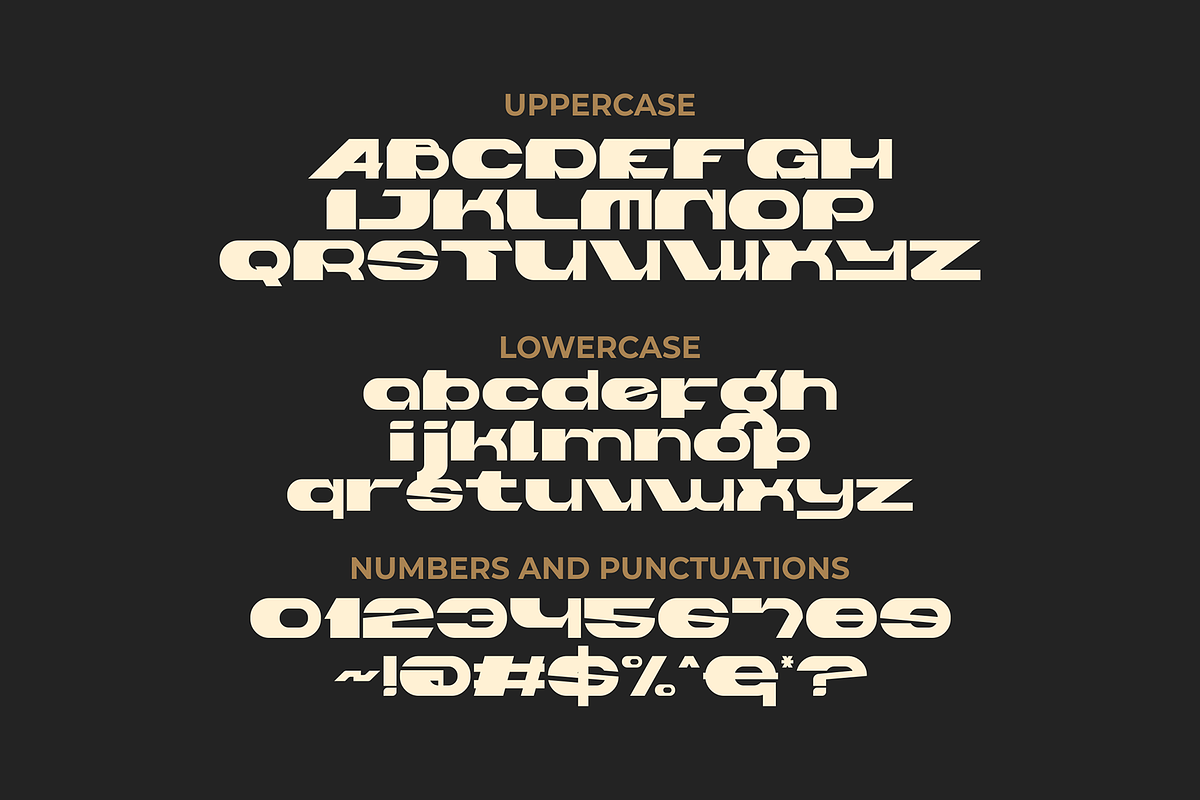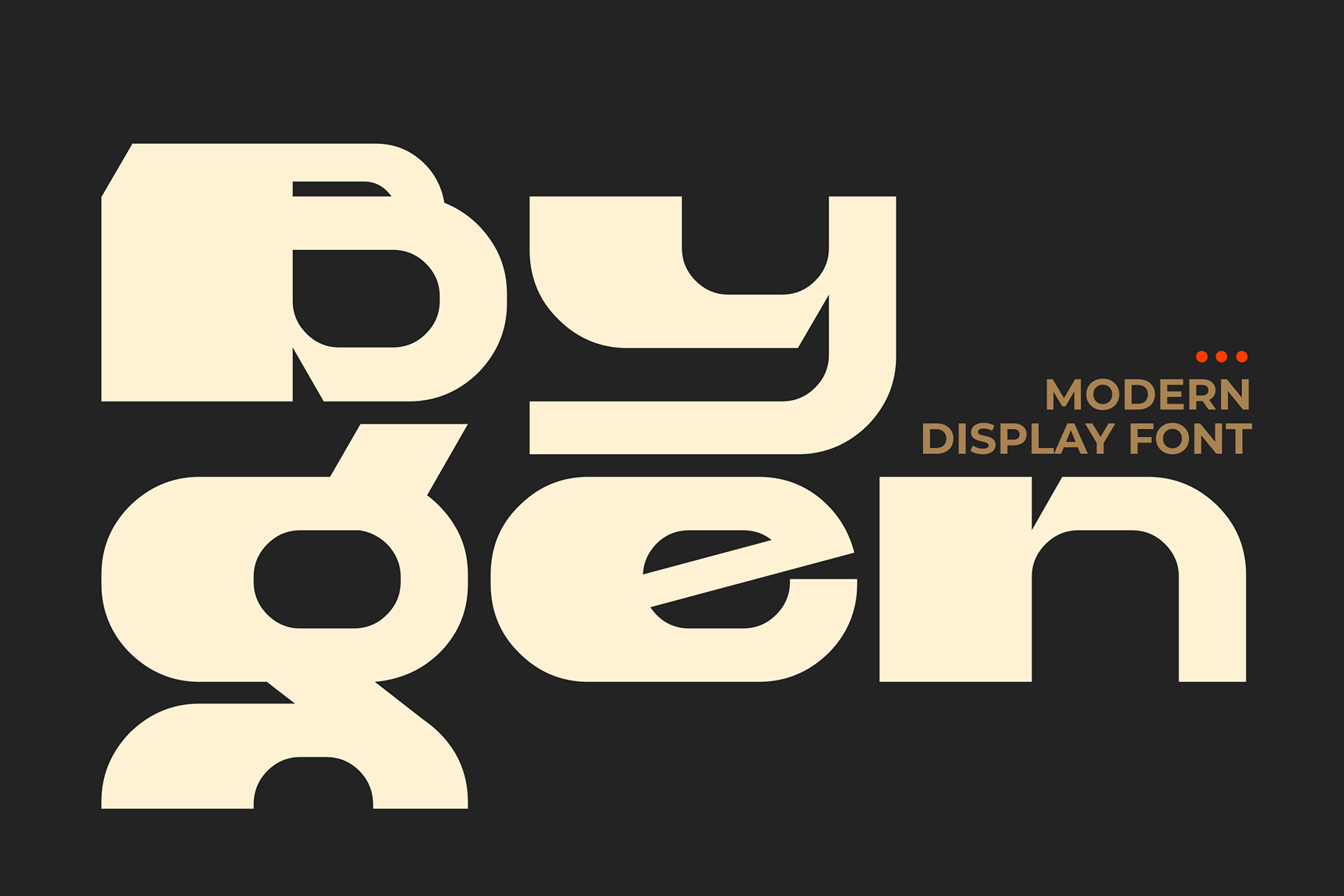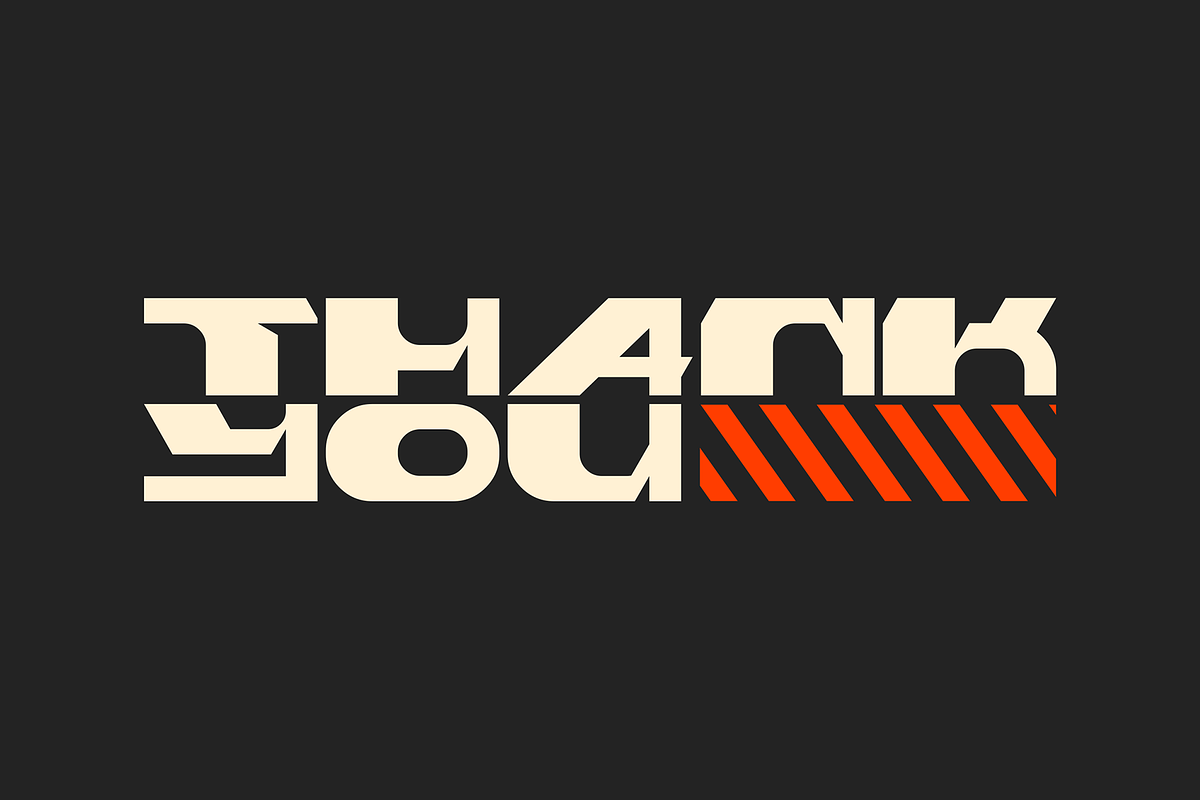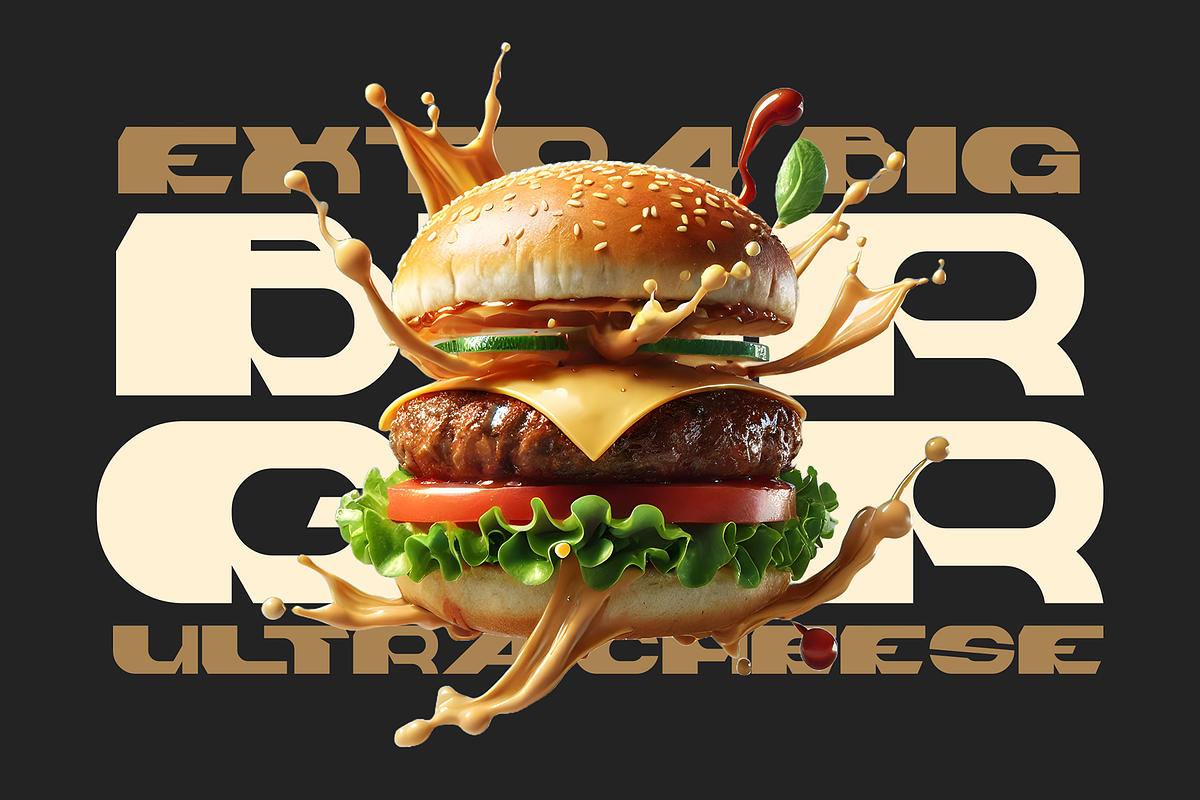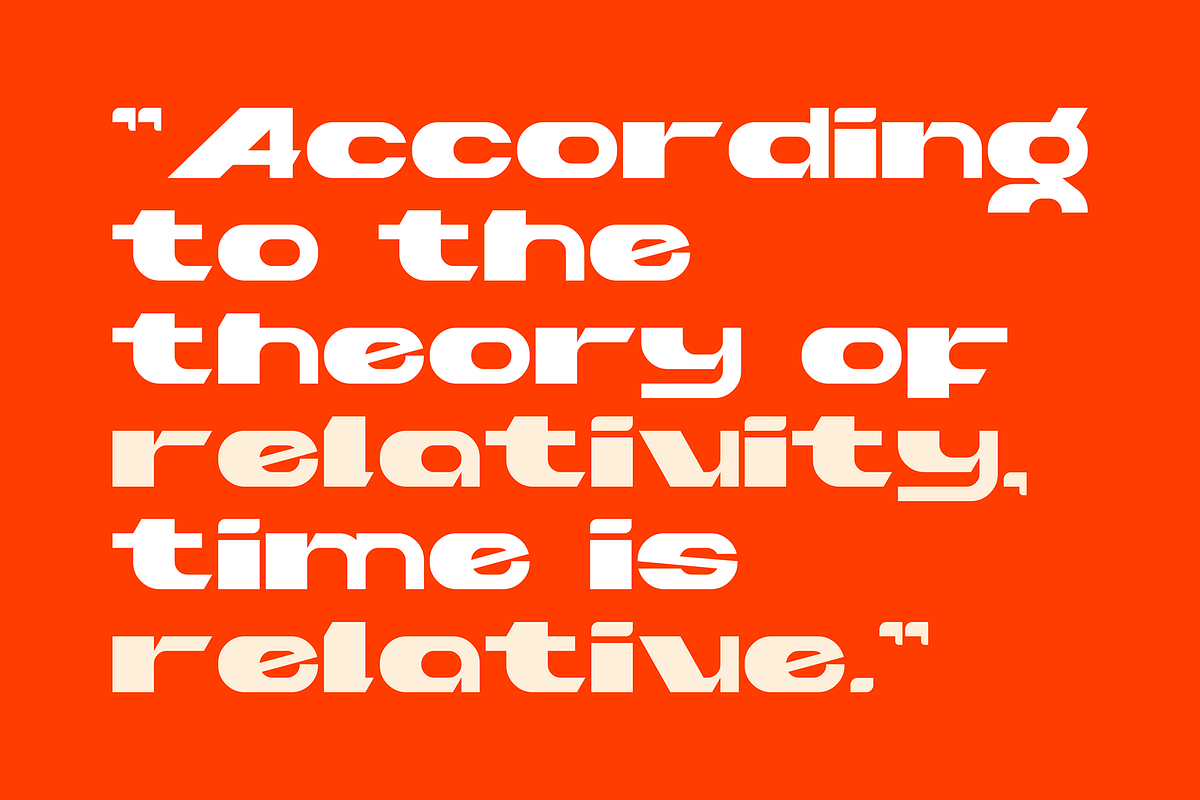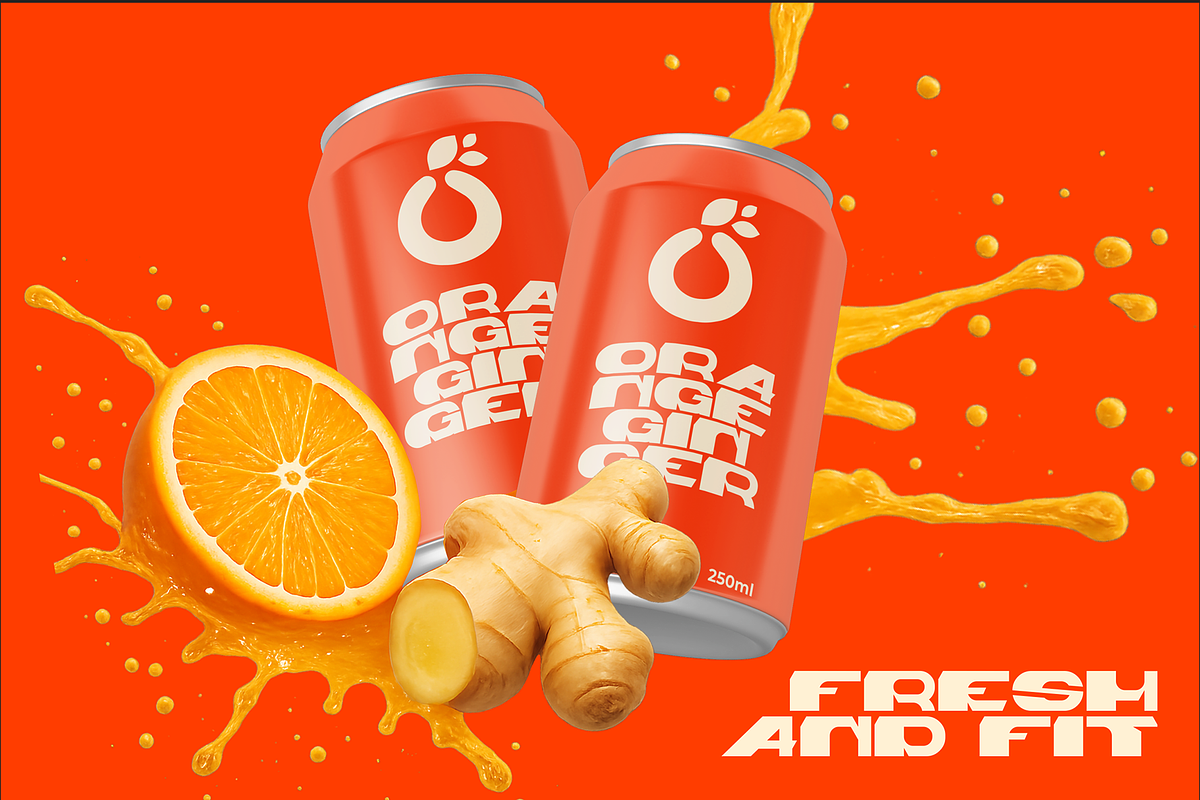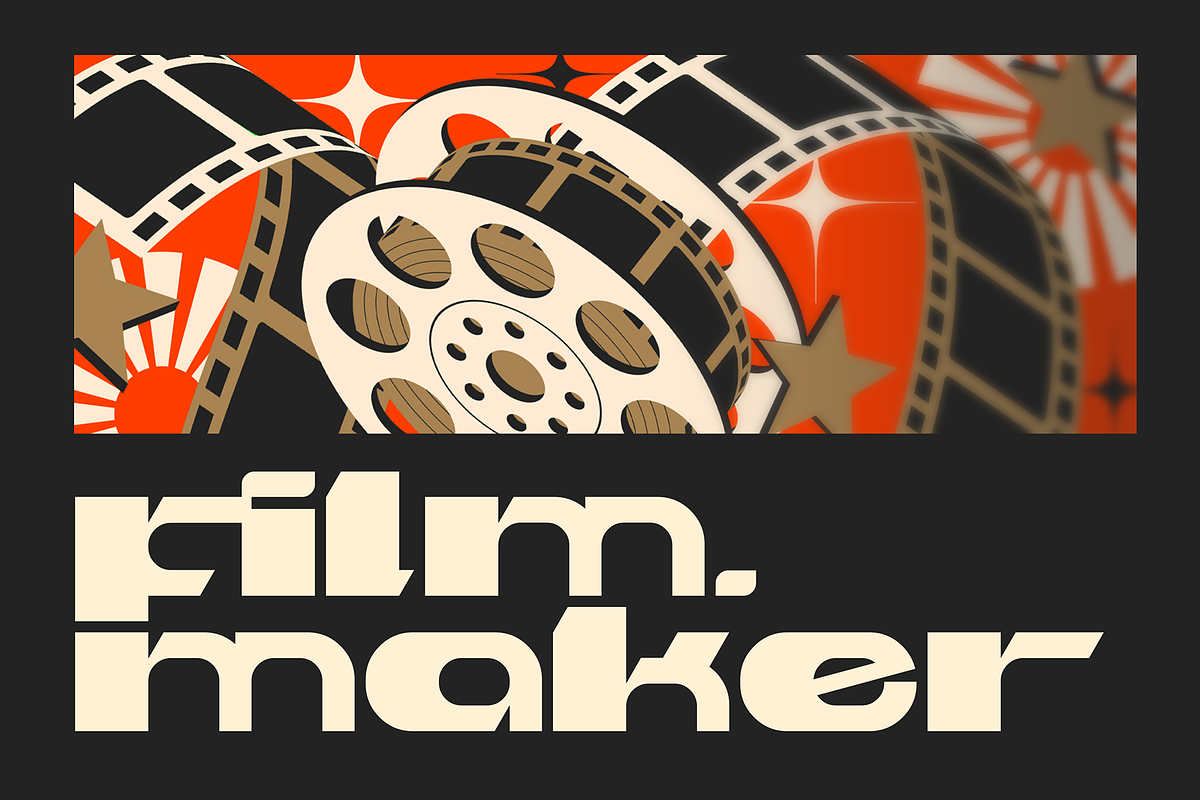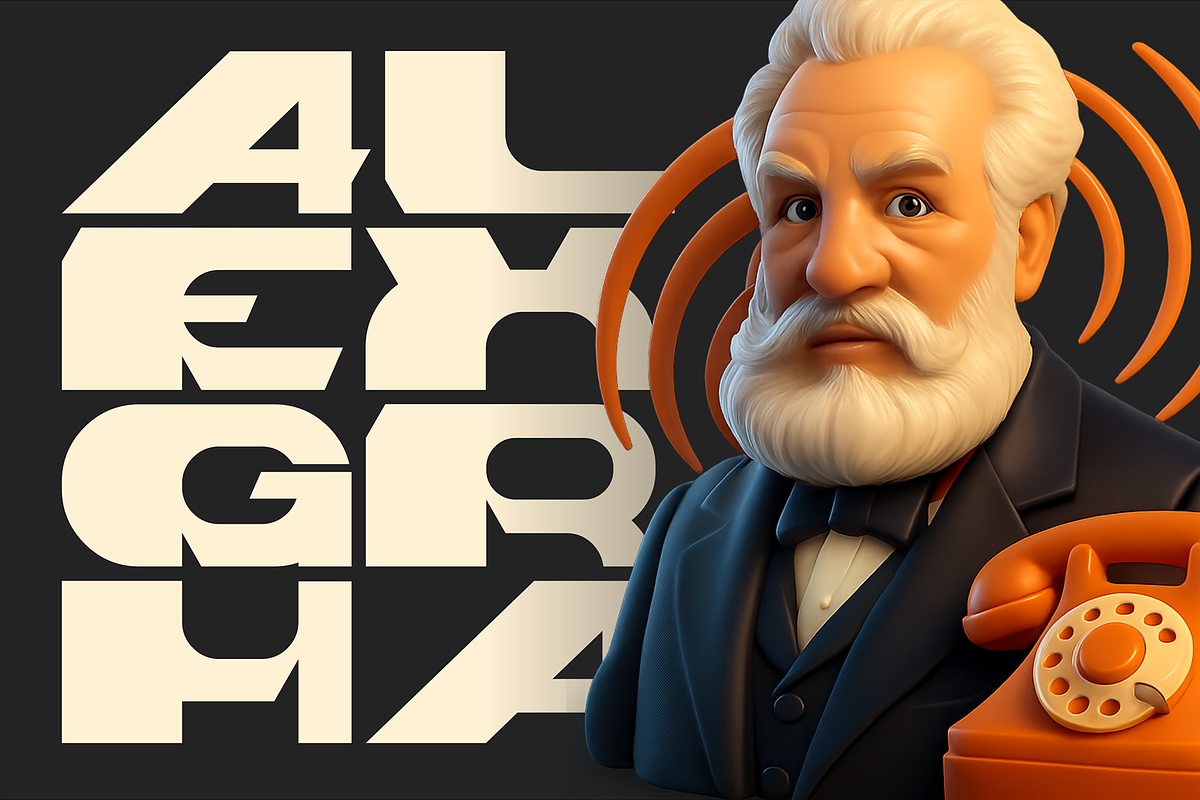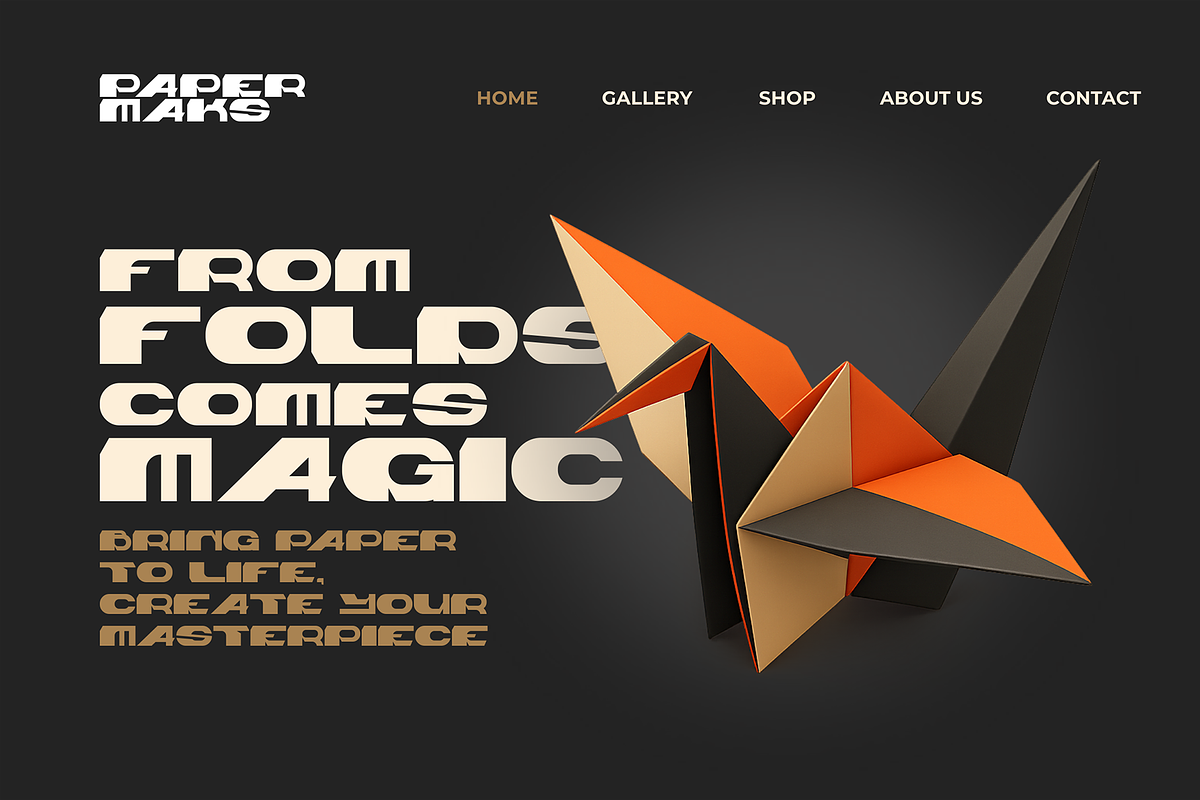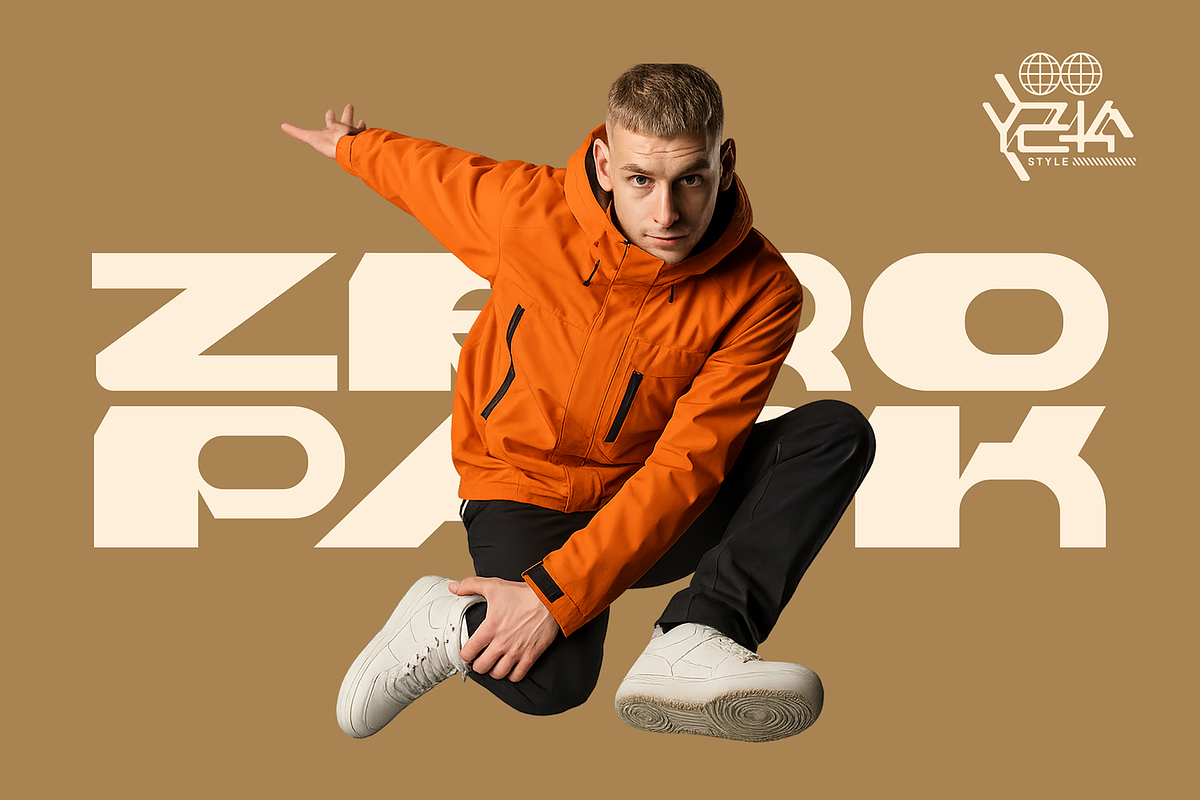
Bygen – Modern Display Font
Bygen is a sleek and stylish modern display font crafted to bring a fresh, clean edge to your design projects. With a contemporary aesthetic and versatile character set, Bygen blends sharp precision with minimal flair—making it ideal for branding, logos, editorial layouts, packaging, and digital interfaces.
- Uppercase & Lowercase: Flexible for both headline impact and subtext clarity
- Clean Modern Style: Geometric structure with subtle uniqueness in each letter
- Multilingual Support: Covers major Latin-based languages
- Standard Punctuation & Numerals: Fully equipped for professional use
- Versatile Design: Works across a wide range of themes—from tech to lifestyle
- Minimal yet Distinctive: Designed to stand out without overwhelming
Bring a new level of clarity and confidence to your work with Bygen, a font built for bold ideas and clean expression.